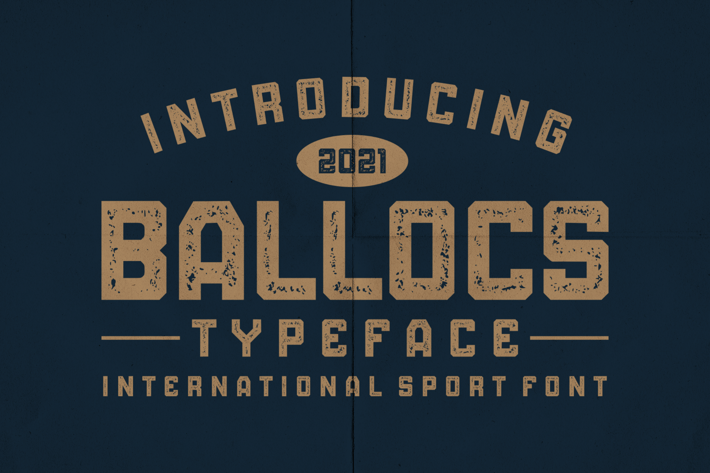
BALLOCS TEXTURED SPORT FONT
Inspired by font blocks and sports-related things, suitable for use as logos, headlines, master signs, scoreboards and others.